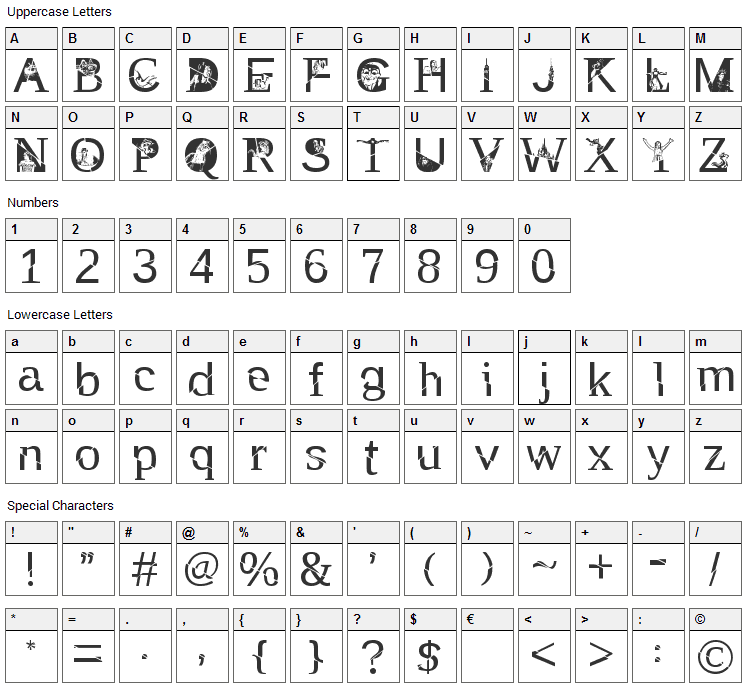
TAK Enchanted Font
Font Name:TAK Enchanted
Developer:Ho Tak Lam
Category:Fancy > Various
In Fact, this is my homework... So the quality is not high. Sans serif part represent the real world, and the serif part represent the fairy tales world.